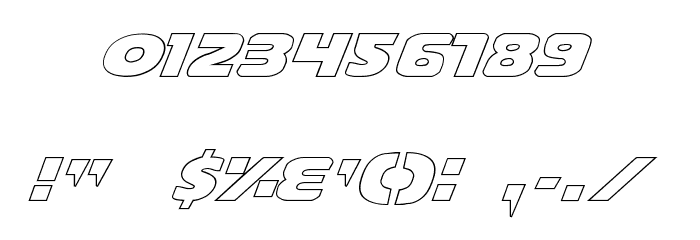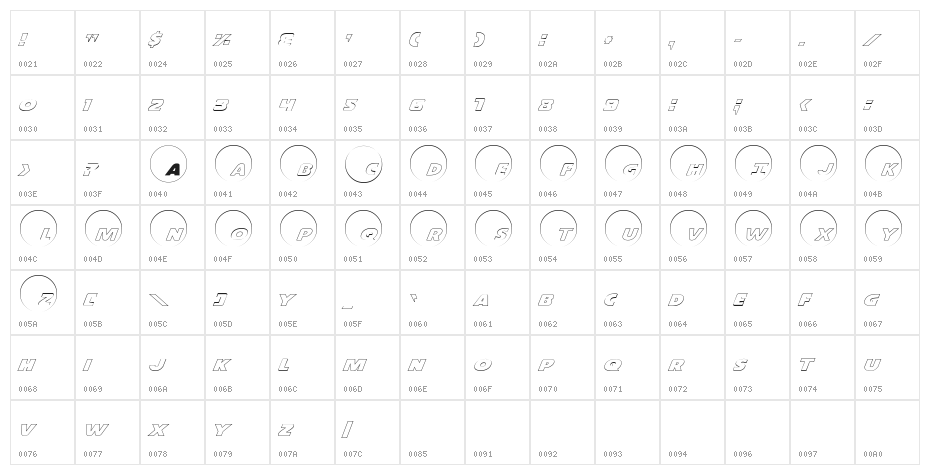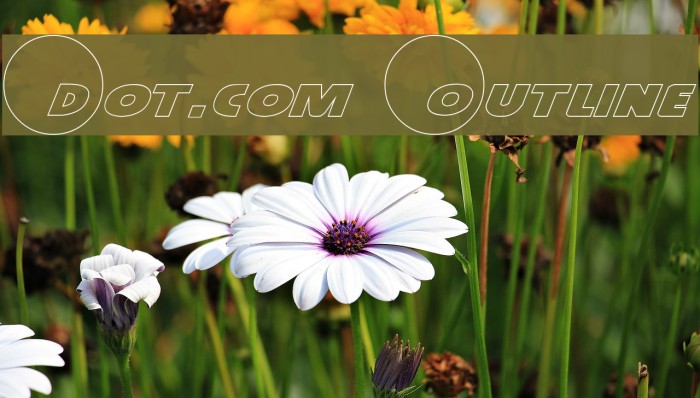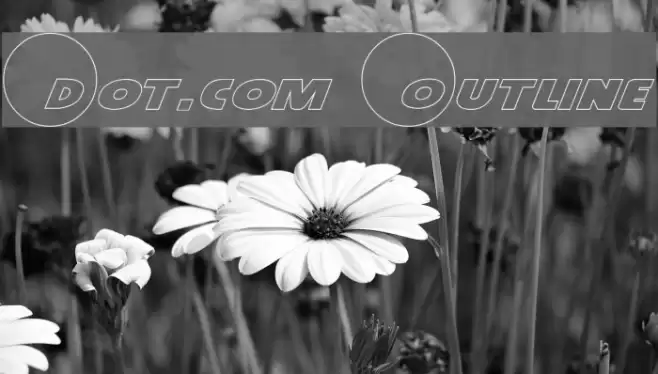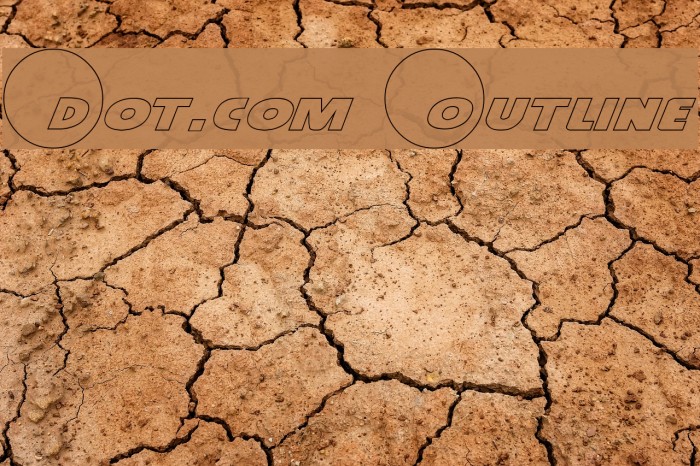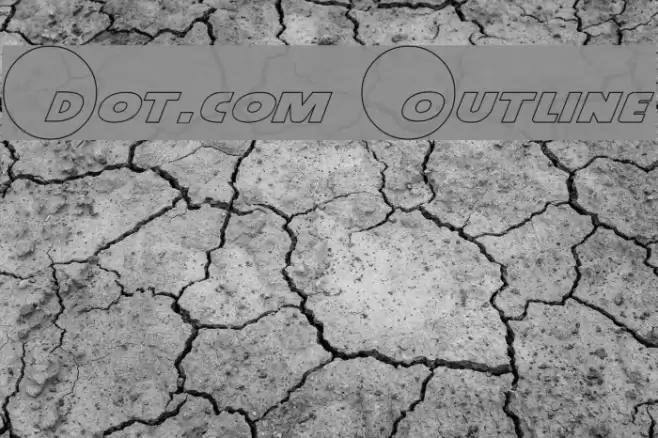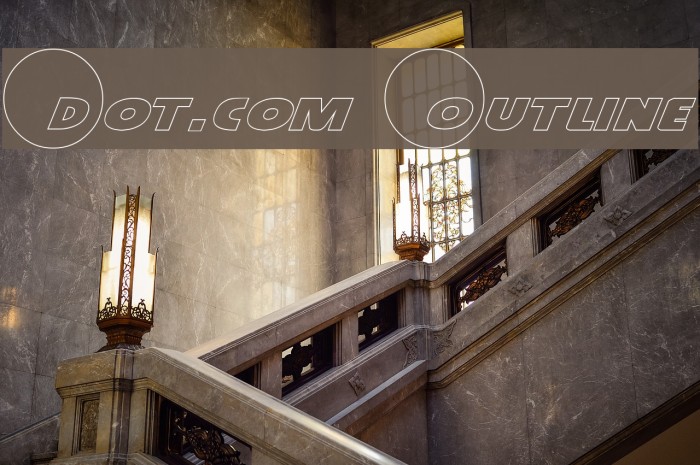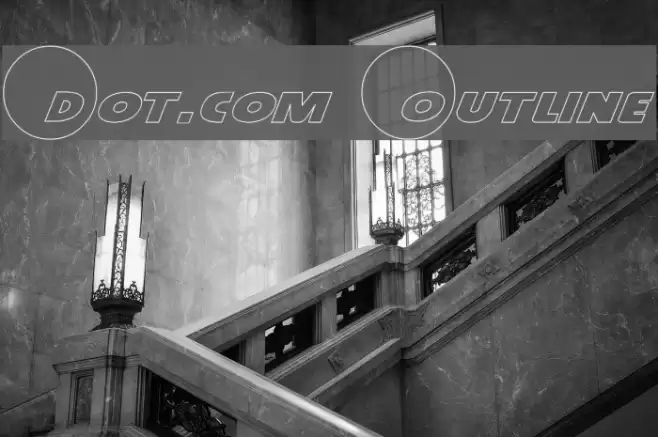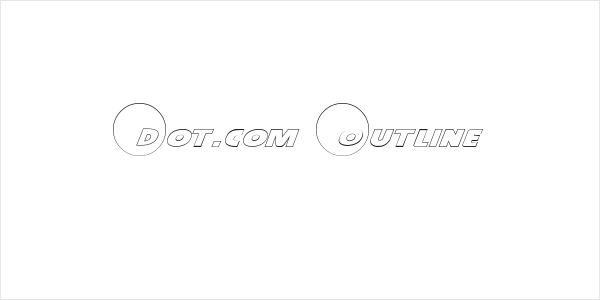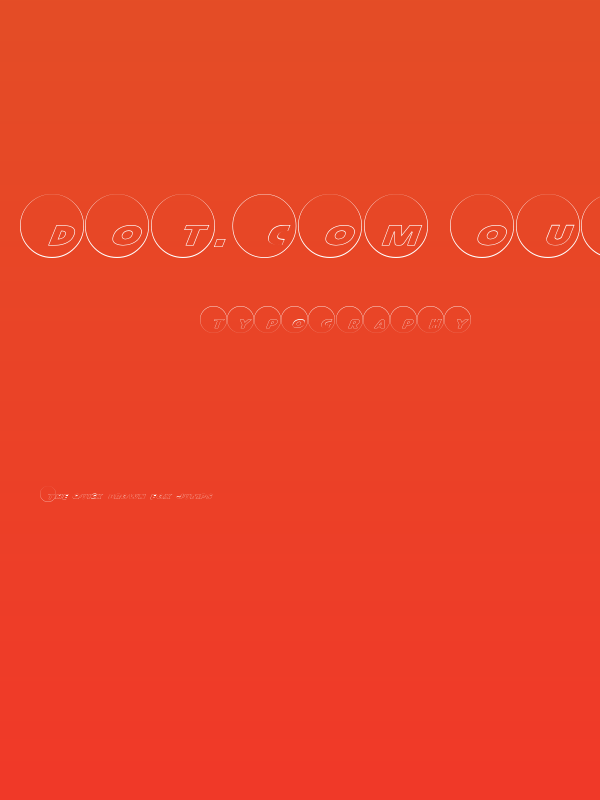
Dot.com Outline Font
Dot.com Outline Description
This font features a bold, outlined style with a modern and futuristic aesthetic. The uppercase letters are enclosed in circles, giving a unique and playful appearance. The characters are wide and have a distinct geometric form, emphasizing straight lines and sharp angles. The numbers and special characters maintain this consistent style, adding to the font's cohesive look. The outlined nature of the font allows for creative use of color and background, making it versatile for various design applications.
| Proposed Projects | Ideal for tech-themed designs, futuristic branding, posters, and digital media where a modern and playful look is desired. |